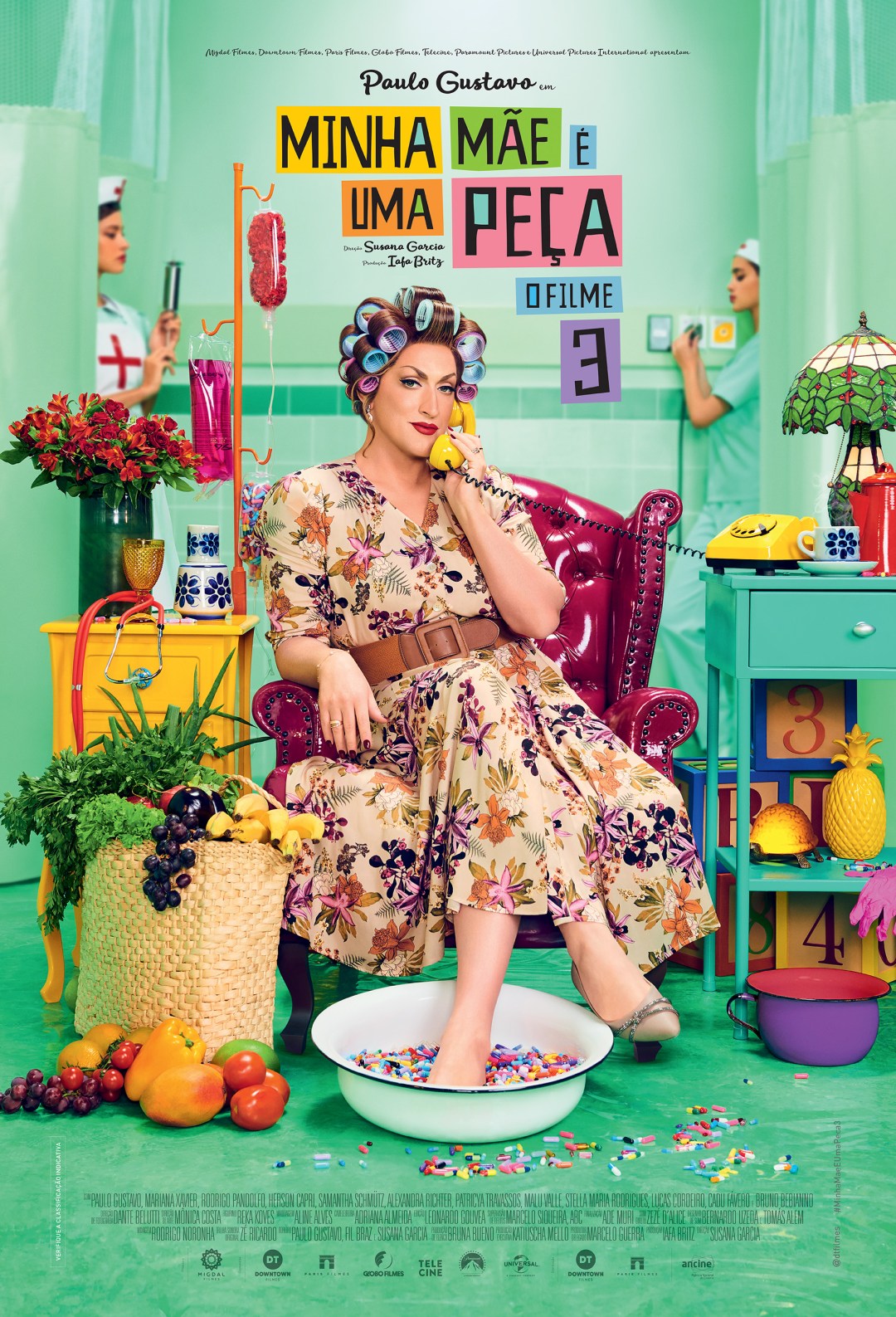
My Mom Is a Character 3 Font
My Mom Is a Character 3 title on the poster is set in Nevermind from Holland Fonts. The simple script at the top of the poster is similar to Lifehack Medium by Veneta Rangelova. Lifehack's casual sans and script style make it a very popular choice for print and the web.